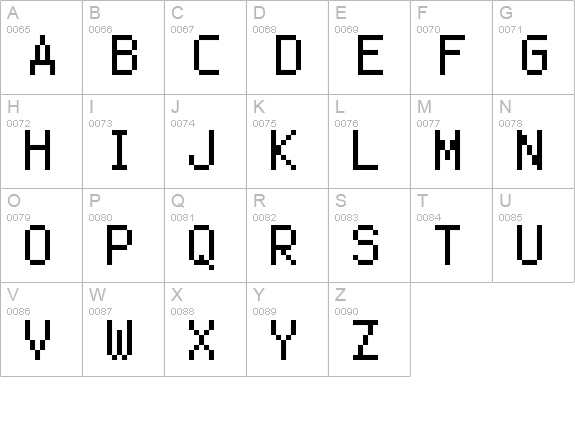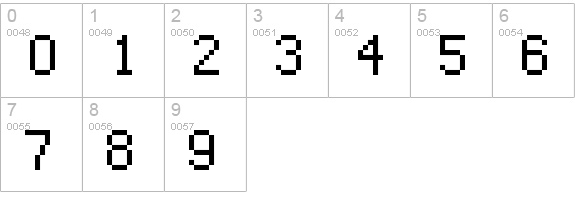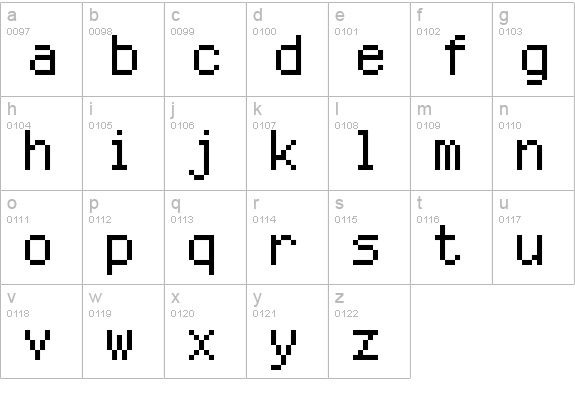
mono 08_56 Font Details
Mono 08_56 is a sleek and modern monospaced font that is perfect for coding, programming, and any other text that requires a clean and professional look. With its sharp lines and consistent spacing, Mono 08_56 is easy to read and ideal for use in both digital and print projects. The font's minimalist design makes it versatile and suitable for a wide range of applications. What makes Mono 08_56 even better is that it is completely free to download at FontsMarket.com. This means you can enhance your projects with this stylish font without any cost involved. Whether you're a designer, developer, or just someone looking to add a touch of sophistication to your text, Mono 08_56 is a fantastic choice that won't break the bank. Download it today and elevate your designs with this exceptional font.